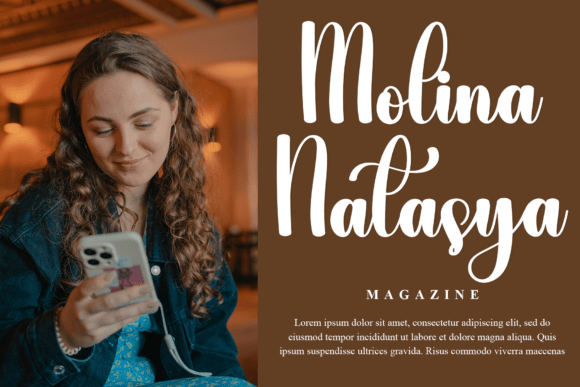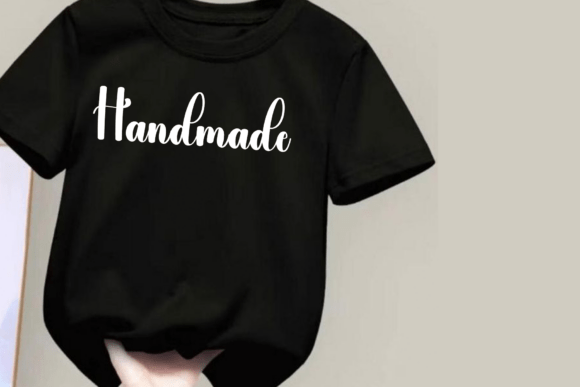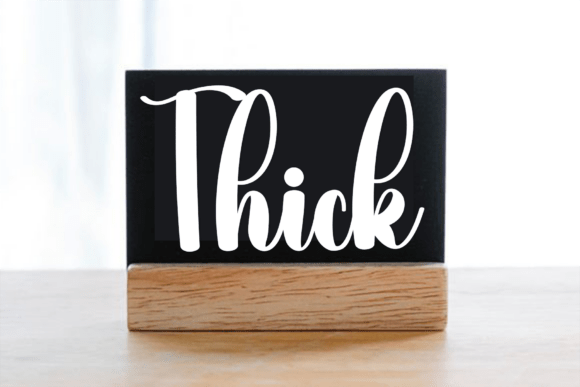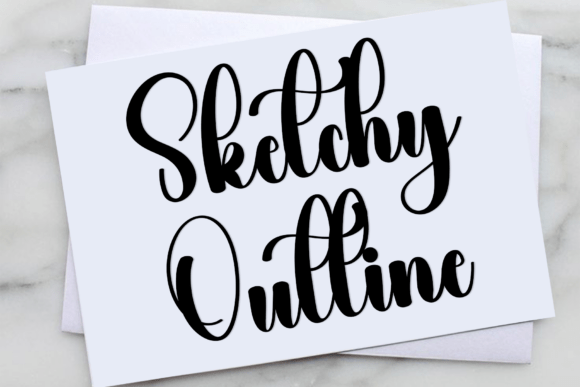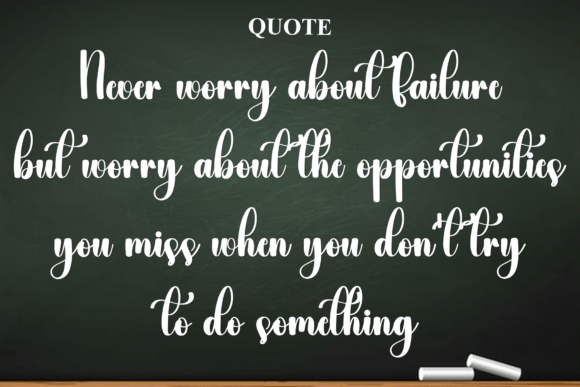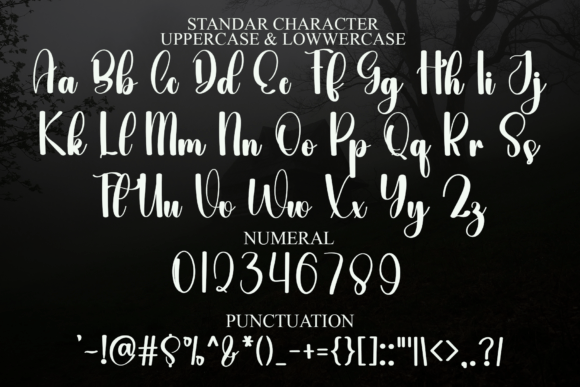
Introduction to Sentimental Journal Font
Sentimental Journal is a festive and merry typeface that captures the spirit of the holiday season.
Key Features of Sentimental Journal Font